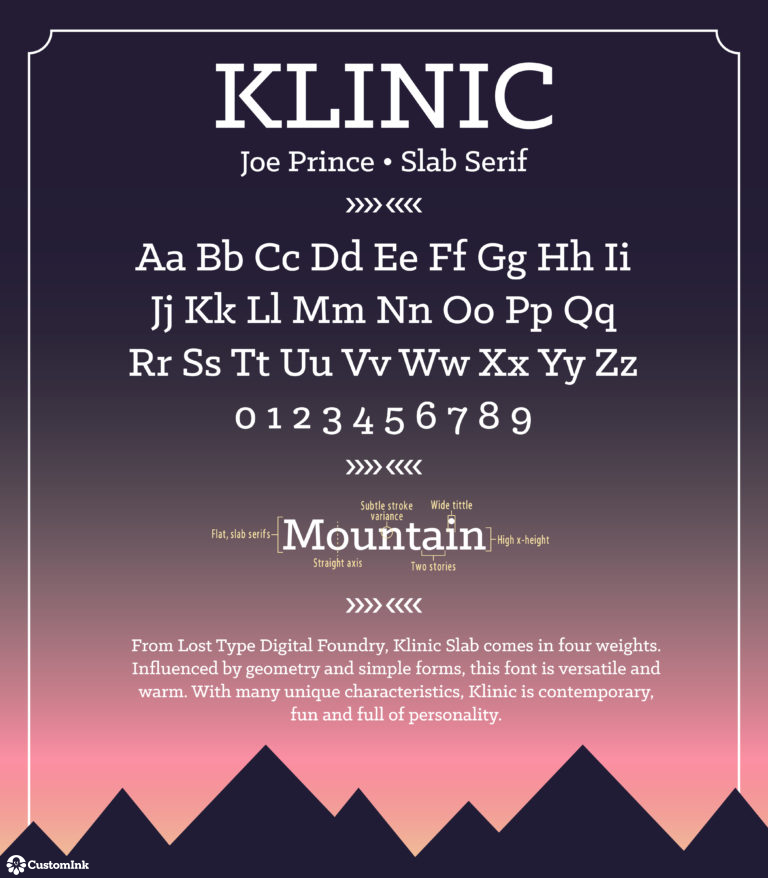
Font of the Week — Klinic
Klinic comes in four weights and is considered a “warm versatile slab serif” by the Lost Type Co-op. This font, created by graphic designer Joe Prince, is beloved for it’s contemporary feel and functionality. Klinic’s unique characteristics make it fun for both text and display.